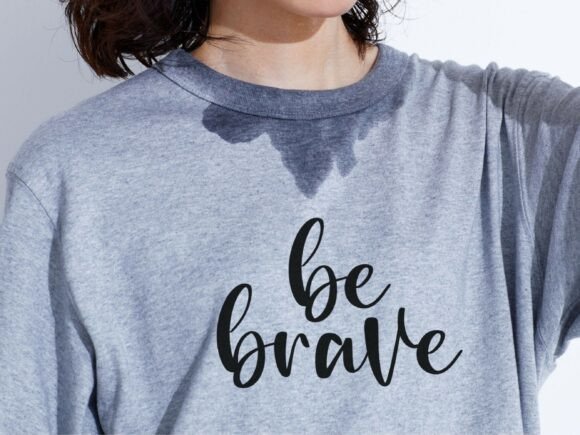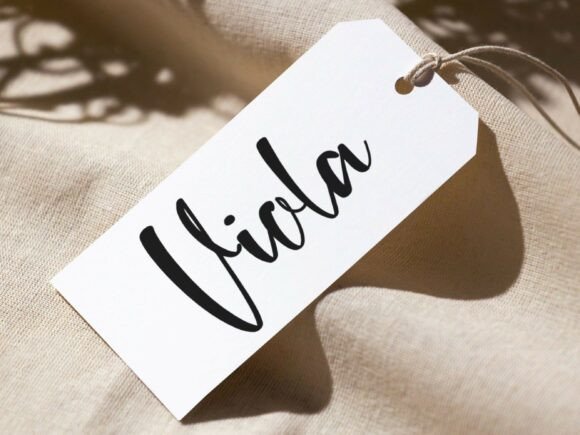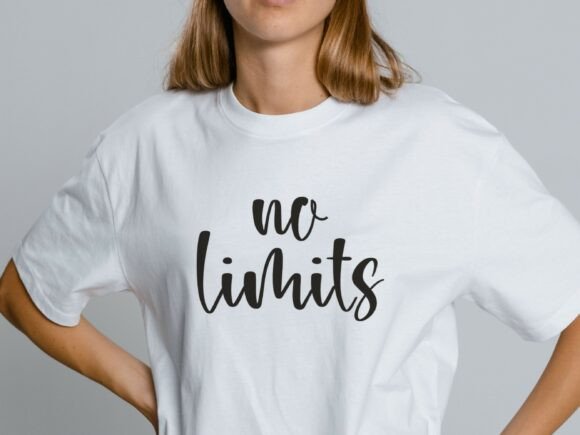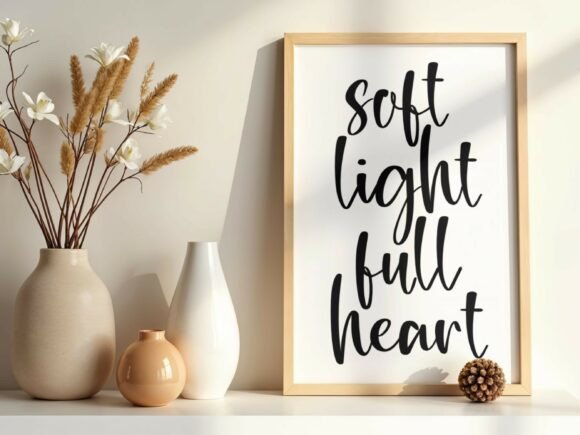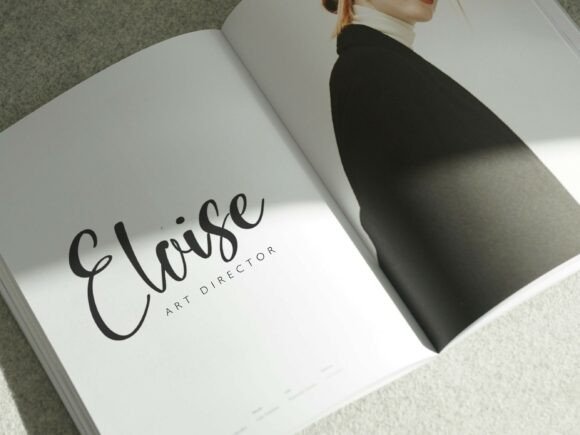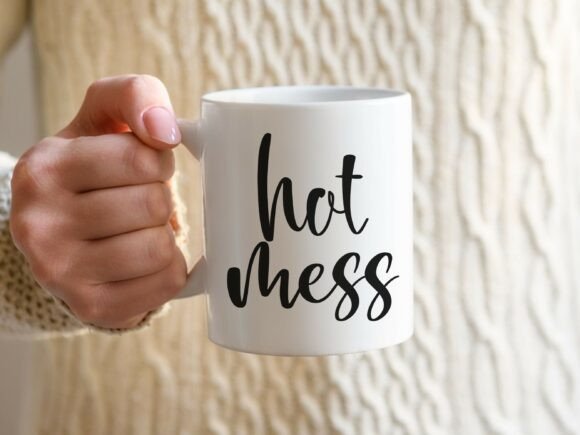
Gals Font: Elevate Your Designs with Elegance and Sophistication
In the world of typography, a well-crafted font can make all the difference in elevating your designs from ordinary to extraordinary. Introducing Gals Font, a stylish script font that exudes elegance and contemporary charm. With its graceful strokes, fluid curves, and carefully crafted letterforms, Gals Font captures the beauty of hand-drawn calligraphy with a modern twist.
The Beauty of Gals Font
Gals Font is a masterful blend of traditional calligraphy and modern design principles. Its flowing script style is reminiscent of hand-drawn calligraphy, yet its clean lines and polished details give it a distinctly contemporary feel. This font is perfect for designers and crafters looking to add a touch of sophistication and refinement to their work.
Key Features of Gals Font
- Stylish Script Style: Gals Font features a beautiful, flowing script style that’s perfect for creating elegant and sophisticated designs.
- Graceful Strokes and Fluid Curves: The font’s carefully crafted letterforms are characterized by smooth, flowing strokes and curves that give it a natural, hand-drawn feel.
- Modern Twist: While Gals Font is rooted in traditional calligraphy, its modern design principles make it perfect for contemporary designs.
- Versatility: This font is ideal for a wide range of design applications, including logos, invitations, packaging, and social media graphics.
Design Applications for Gals Font
Gals Font is an incredibly versatile font that can be used in a variety of design applications. Here are a few ideas to get you started:
- Logos: Create a sophisticated and elegant logo for your business or brand with Gals Font.
- Invitations: Add a touch of refinement and luxury to your wedding invitations, party invites, or other special events with Gals Font.
- Packaging: Elevate your product packaging with Gals Font, perfect for high-end brands and luxury products.
- Social Media Graphics: Create stunning social media graphics, such as Instagram posts and Facebook headers, with Gals Font.
Why Choose Gals Font?
With so many fonts available, why choose Gals Font? Here are just a few reasons why designers and crafters love this font:
- Elegance and Sophistication: Gals Font adds a refined and sophisticated touch to any design.
- Versatility: This font can be used in a wide range of design applications, from logos to social media graphics.
- Easy to Read: Despite its elegant and cursive style, Gals Font is easy to read and understand.
- Unique and Memorable: Gals Font is sure to make your designs stand out from the crowd and leave a lasting impression.
Tips for Using Gals Font
To get the most out of Gals Font, here are a few tips to keep in mind:
- Use it Sparingly: While Gals Font is elegant and sophisticated, it can be overwhelming if used too much. Use it sparingly to create a focal point in your design.
- Pair it with Other Fonts: Experiment with pairing Gals Font with other fonts to create a unique and visually appealing design.
- Adjust the Size and Color: Play around with different sizes and colors to find the perfect combination for your design.
In conclusion, Gals Font is a stylish script font that exudes elegance and contemporary charm. With its graceful strokes, fluid curves, and carefully crafted letterforms, it’s perfect for designers and crafters looking to add a refined and sophisticated touch to their work. Whether you’re creating logos, invitations, packaging, or social media graphics, Gals Font is sure to elevate your designs to the next level.